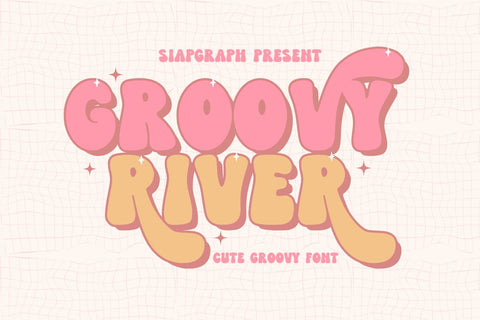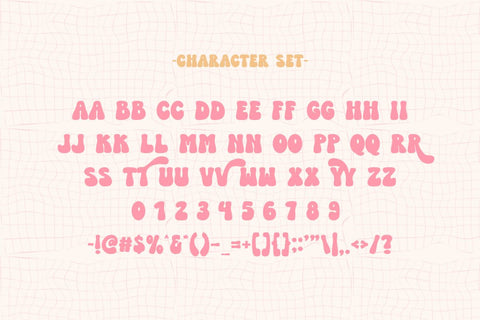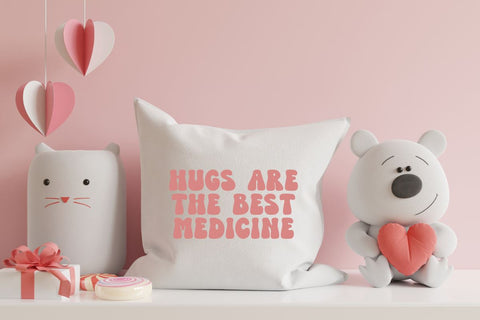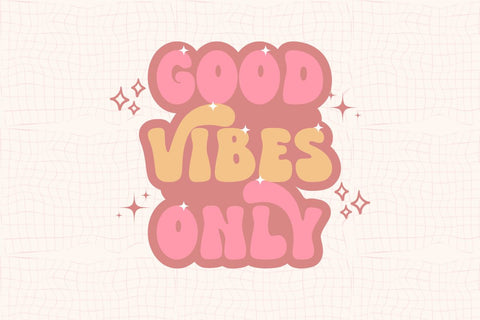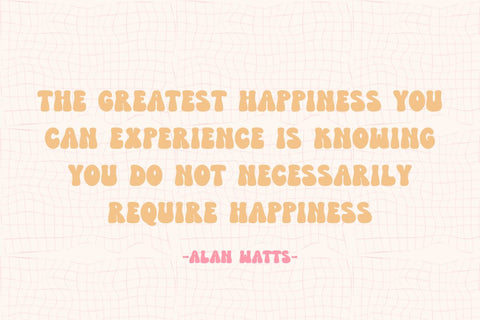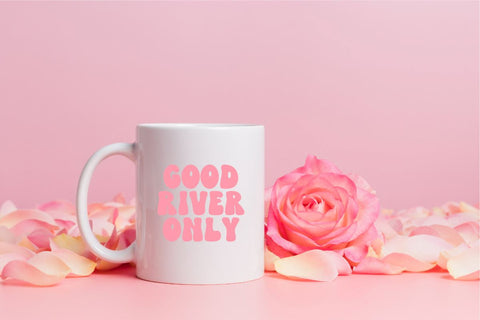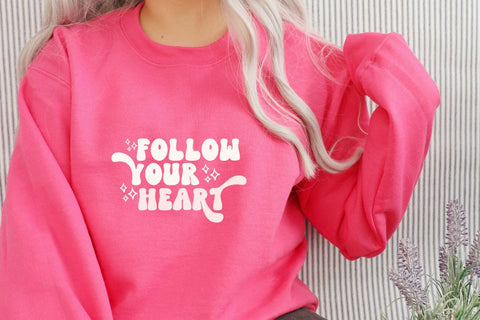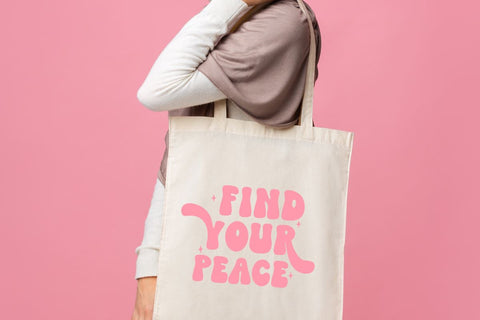
Groovy River - Cute Groovy Font
Groovy River is a bold, retro, and groovy font designed to add a vibrant and nostalgic touch to your creative projects. With its thick strokes, smooth curves, and dynamic alternates, this font exudes a funky vintage feel, making it perfect for eye-catching designs.
Ideal for crafting, sublimation, print on demand, decals, DIY, branding, and KDP interior, Groovy River enhances planner designs, logos, greeting cards, merchandise, and product promotions with its unique and stylish aesthetic. Whether you're working on commercial or personal projects, this font delivers a fun, bold, and energetic vibe.